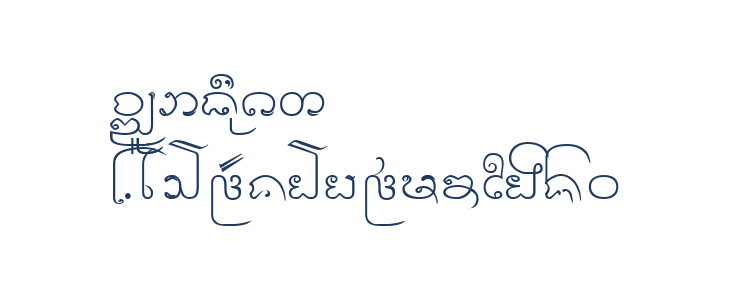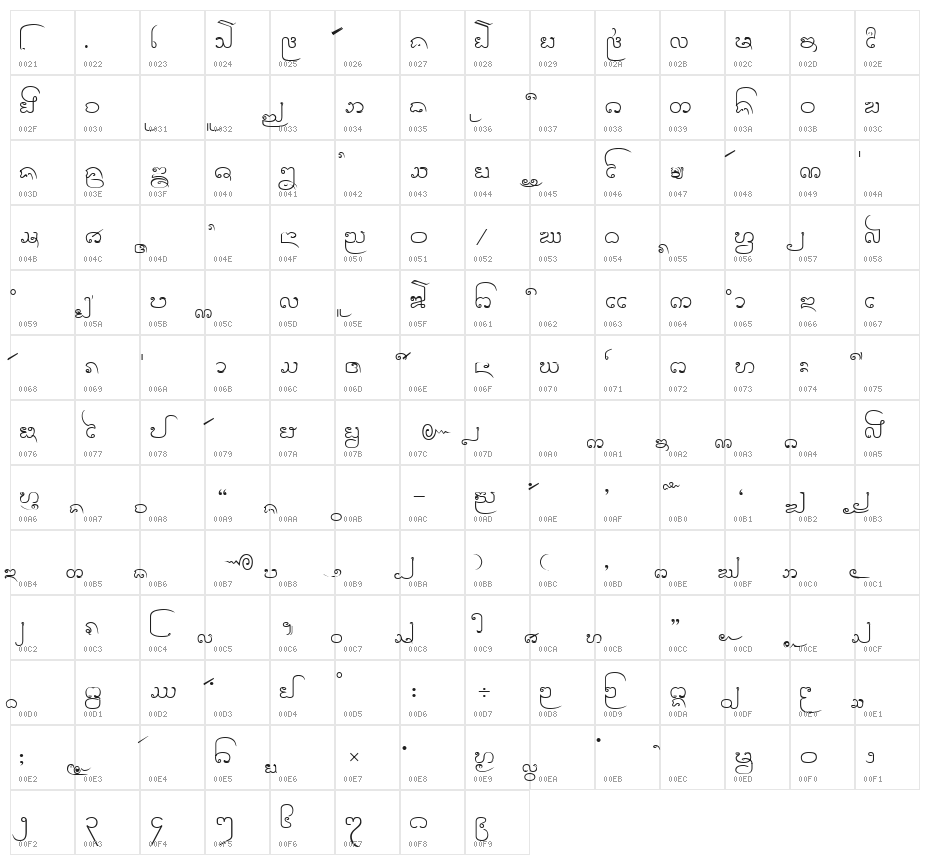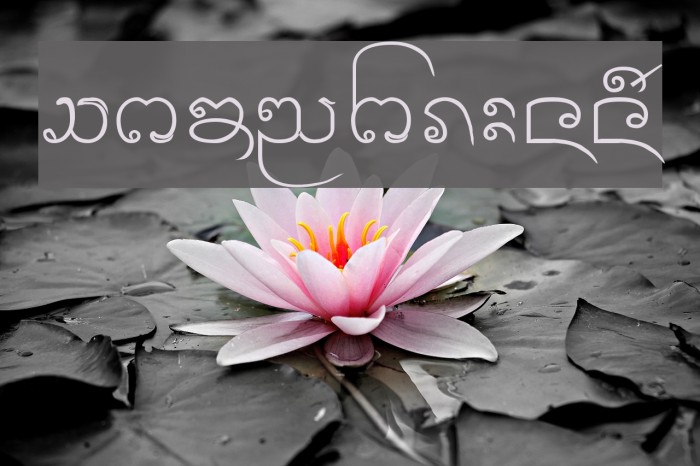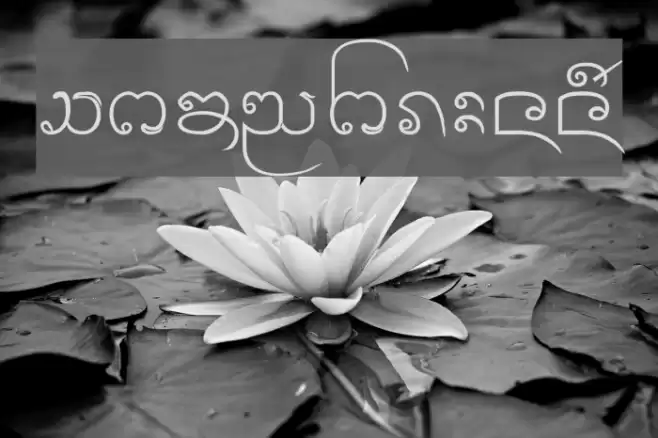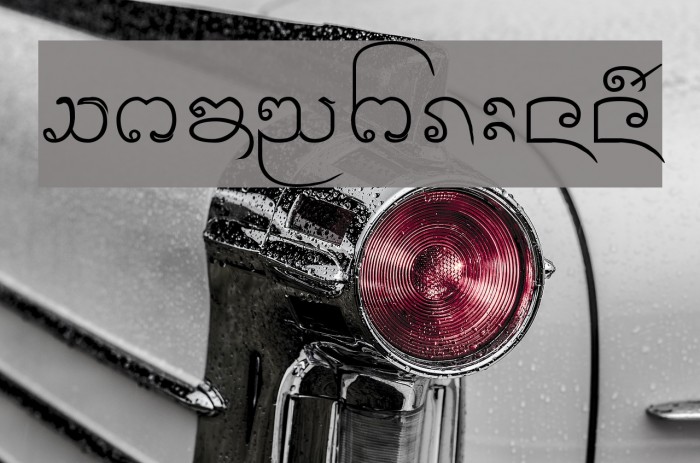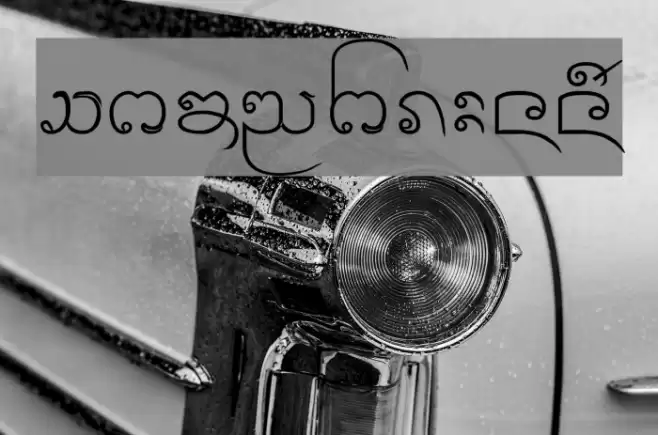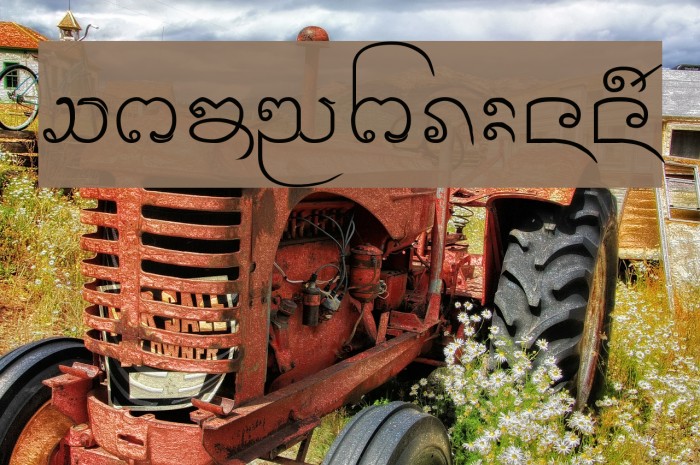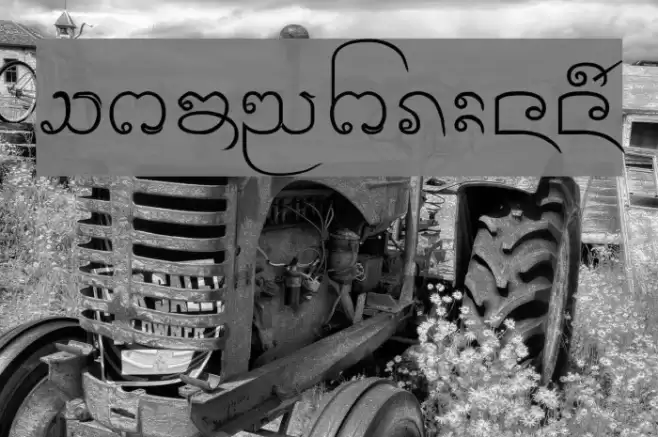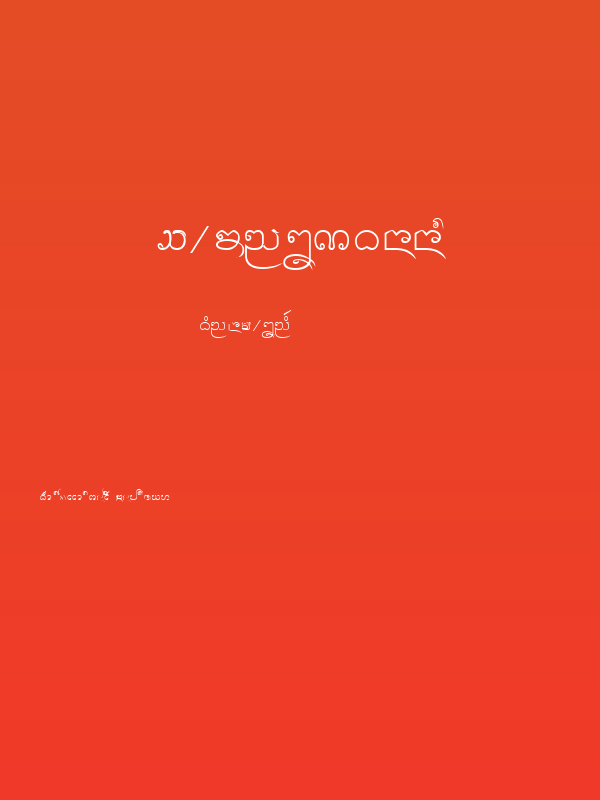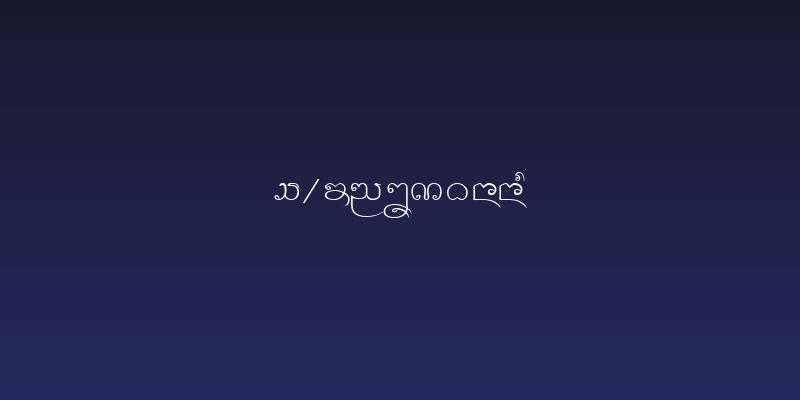
Cr-Paitoon Font
Cr-Paitoon Description
This font features a unique and intricate design, characterized by its ornate and decorative elements. The characters exhibit a flowing, cursive style with elaborate swirls and loops, giving it a distinctly artistic and cultural appearance. The strokes are varied in thickness, adding a dynamic and lively feel to the text. This font is likely inspired by traditional scripts, incorporating elements that suggest a rich historical or cultural heritage. The overall aesthetic is both elegant and expressive, making it suitable for projects that require a touch of sophistication and cultural depth.
Use CaseLogos, Invitations, Decorative headings
Proposed ProjectsIdeal for cultural or historical projects, artistic designs, invitations, or decorative headings.